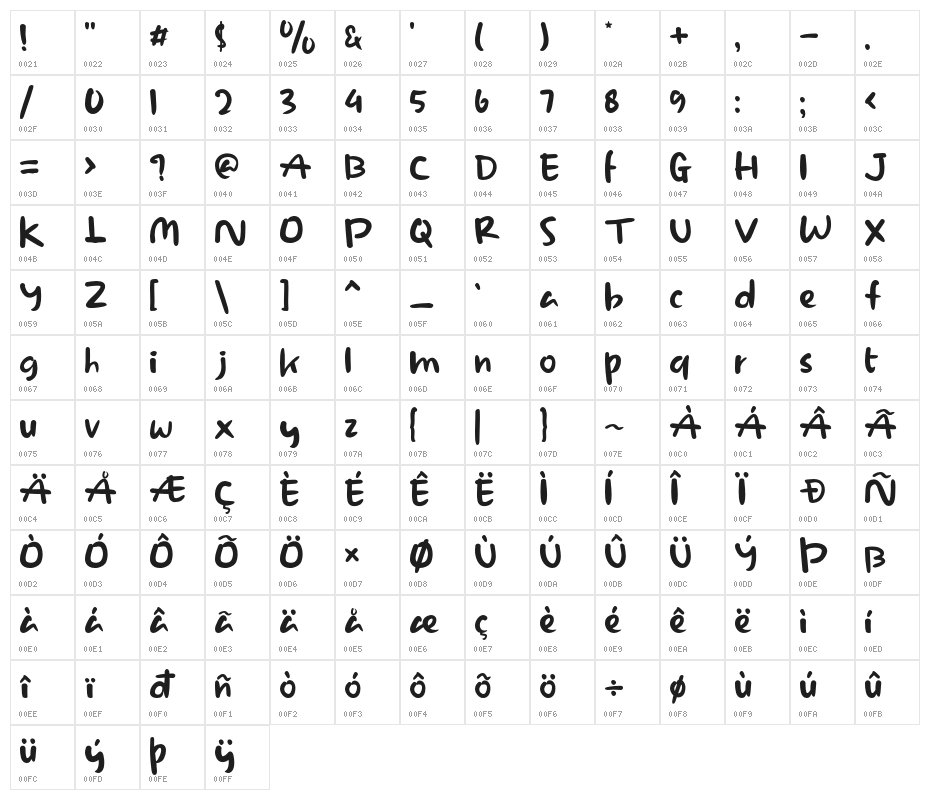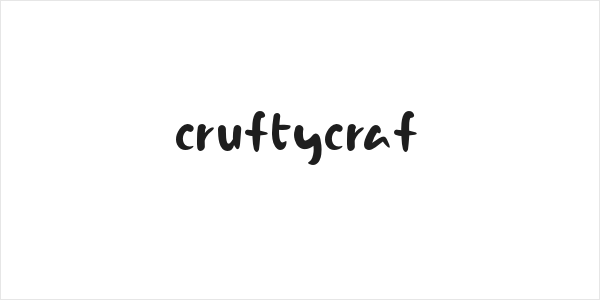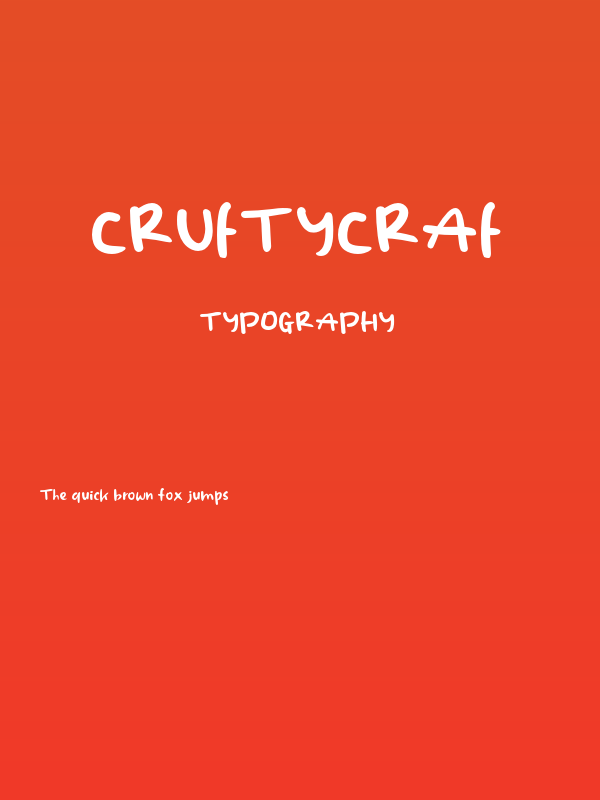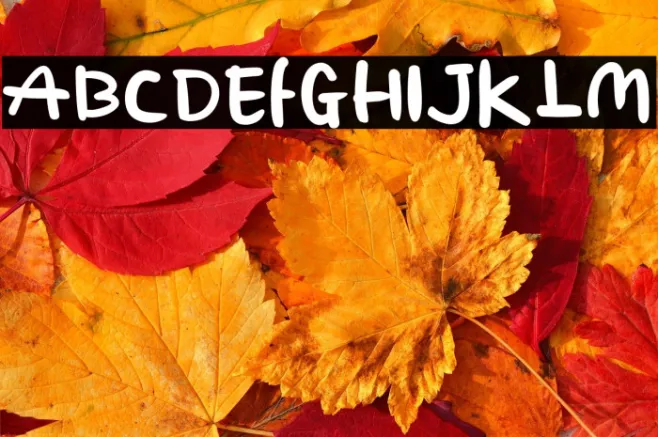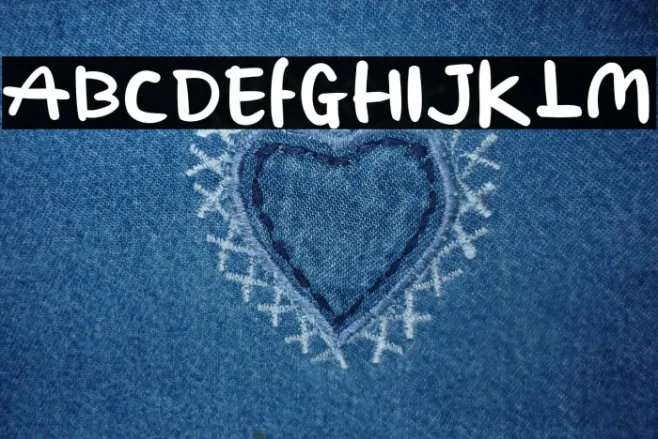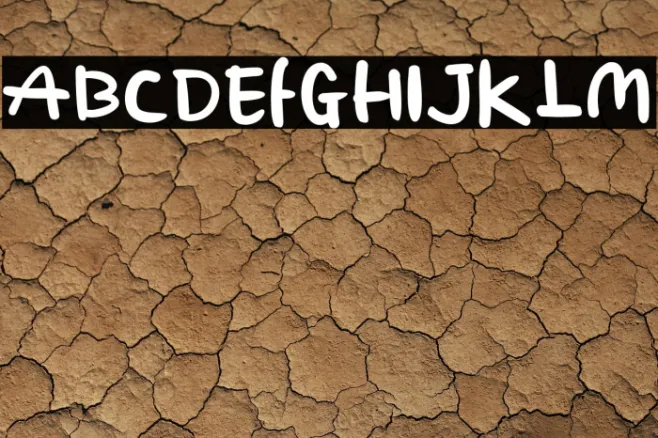
cruftycraf Font
cruftycraf Description
This font features a playful and casual handwritten style, characterized by its bold and rounded letterforms. The strokes are consistent in thickness, giving it a uniform appearance. The letters have a slight slant, adding to the informal and friendly feel. The uppercase and lowercase letters are well-proportioned, with the uppercase being slightly larger. The numbers and special characters maintain the same playful aesthetic, making them easily readable. This font is ideal for projects that require a personal touch, such as invitations, greeting cards, or children's book covers.
| Proposed Projects | Ideal for invitations, greeting cards, children's books, and casual branding. |